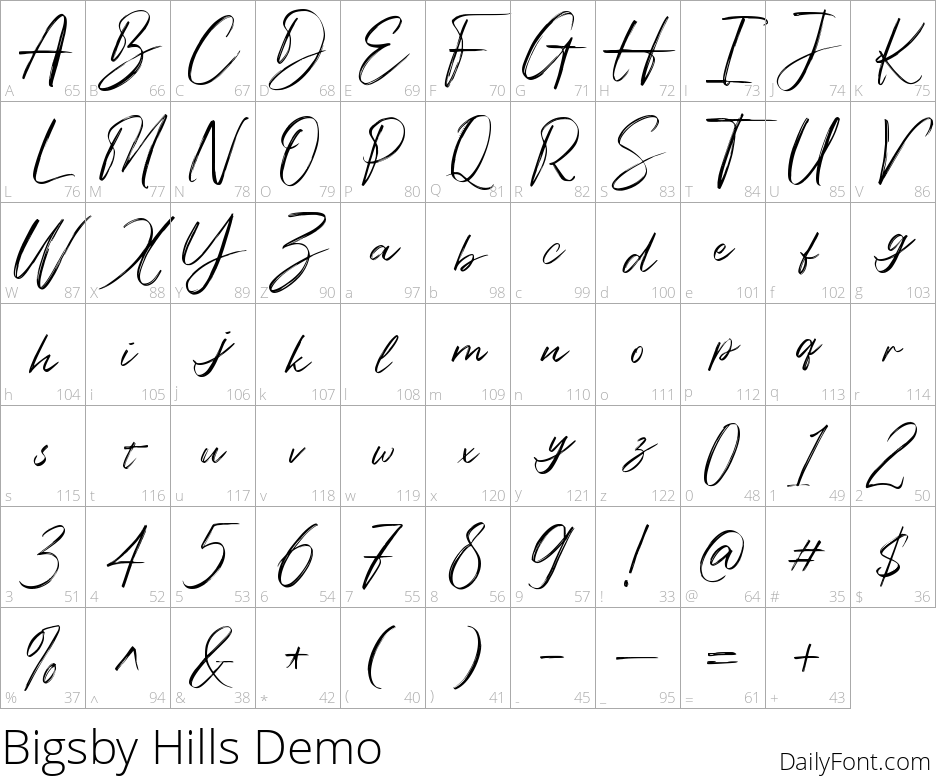
Bigsby Hills
Seeking a stylish, handwritten font with a touch of sophistication? Look no further than a script similar to Bigsby Hills. This lovely font boasts a cursive, brushed style that exudes elegance and modernity. Perfect for making a statement in your branding, logos, or special occasion designs.
Whether you're creating wedding invitations, stationery, or social media posts, this font's classy vibe is sure to impress. Its unique blend of traditional handwritten charm and contemporary flair makes it an ideal choice for a wide range of applications.
If you're looking for a font that can help elevate your design game without overpowering the content, Bigsby Hills' understated sophistication is the perfect solution. With its flowing lines, subtle texture, and refined aesthetic, this font is sure to add a touch of refinement to any project.